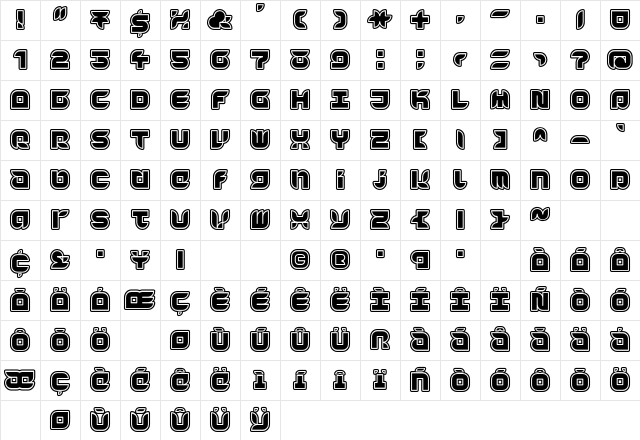
Yr72 Inline Free Font
Yr72 Inline
Style: Inline
Design Context for Yr72
Yr72 is built around its visual character rather than neutral utility - its distinctive forms are designed to make an impression at display sizes.
Font Pairing: Pair with a clean neutral sans-serif for body copy to let Yr72's character lead without overwhelming the composition.
Pro Tip: Use Yr72 exclusively at display sizes - it was designed to be seen, not read at length. Let a neutral companion handle body copy.